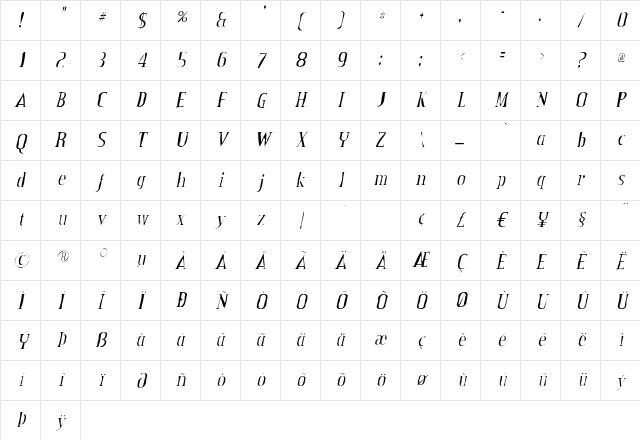
Complete Credit Valley Gaunt Italic glyph index. Displaying only characters natively supported by Credit Valley Gaunt Italic font.
Credit Valley Gaunt is a composed and adaptable typeface that performs quietly and consistently across a wide range of design contexts. The slanted form adds forward momentum and visual energy.